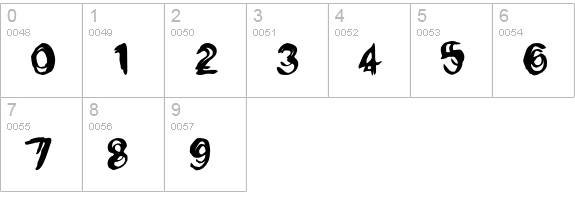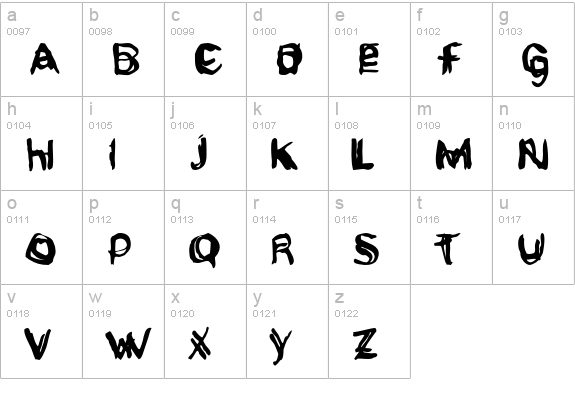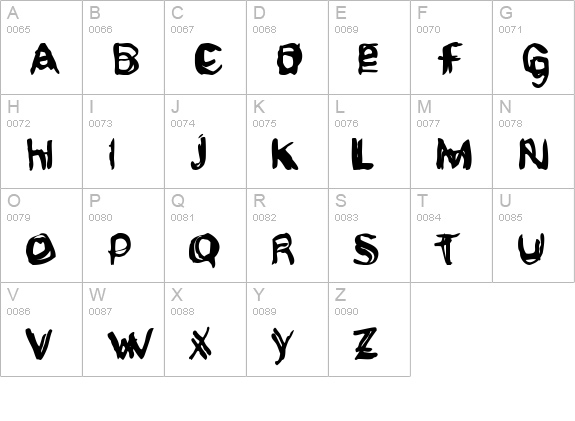
GritzpopGrunge Font Details
Introducing GritzpopGrunge font, a bold and edgy typeface that exudes raw energy and rebellious spirit. This font is perfect for adding a grungy and urban vibe to your designs, whether you're working on posters, album covers, or branding projects. The jagged edges and distressed appearance of GritzpopGrunge font give it a unique and gritty aesthetic that will make your text stand out. Best of all, GritzpopGrunge font is completely free to download at FontsMarket.com. So, if you're looking to add a touch of urban cool to your next project without breaking the bank, look no further than this versatile and dynamic typeface. Download GritzpopGrunge font today and let your creativity run wild with its bold and expressive style.